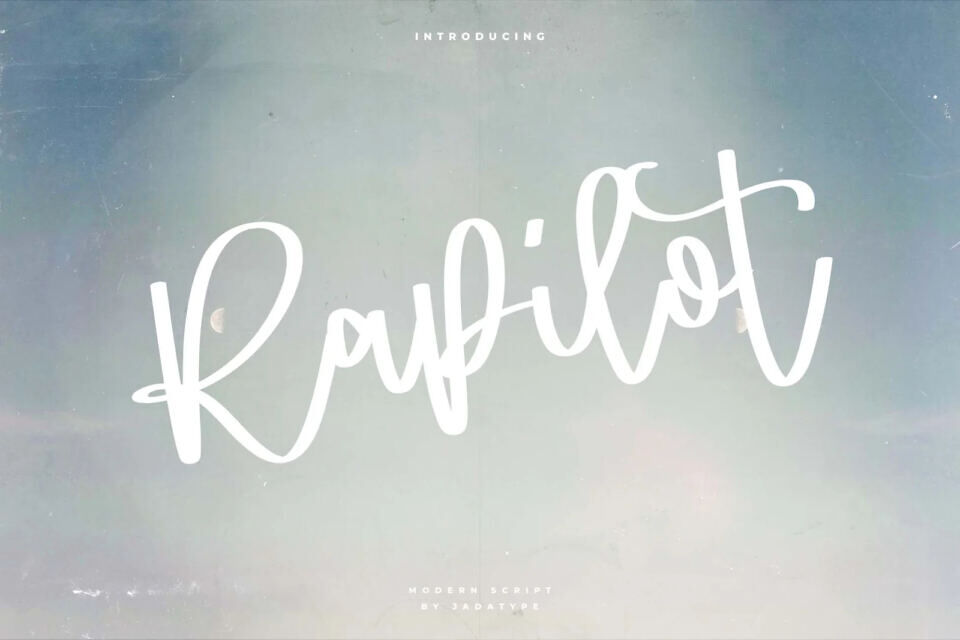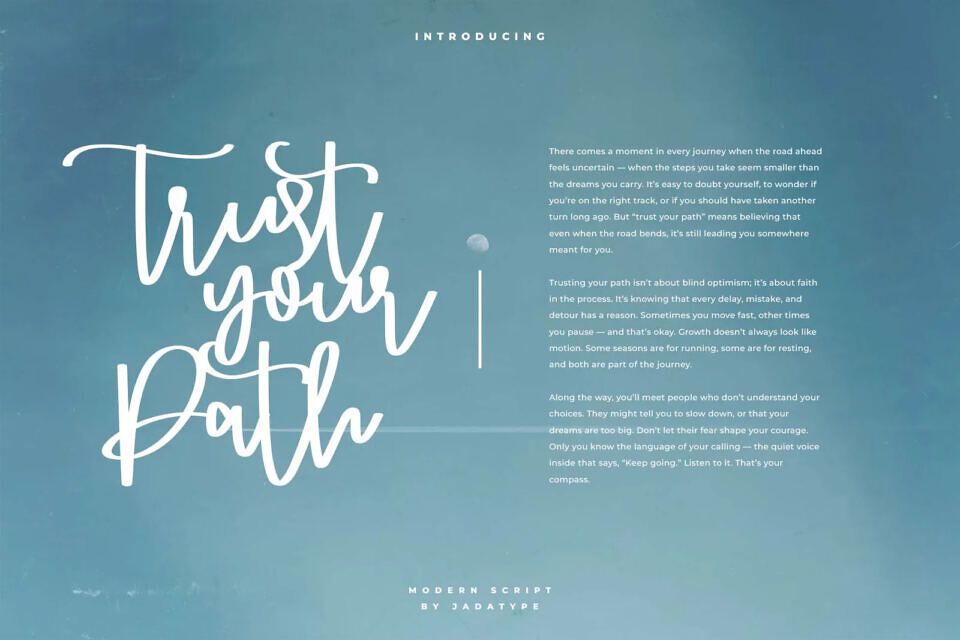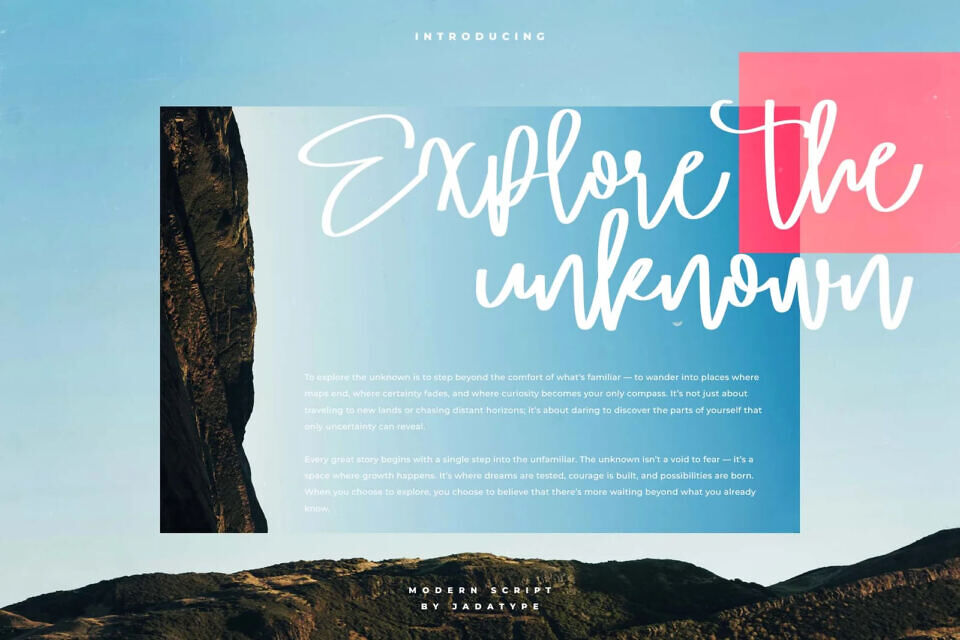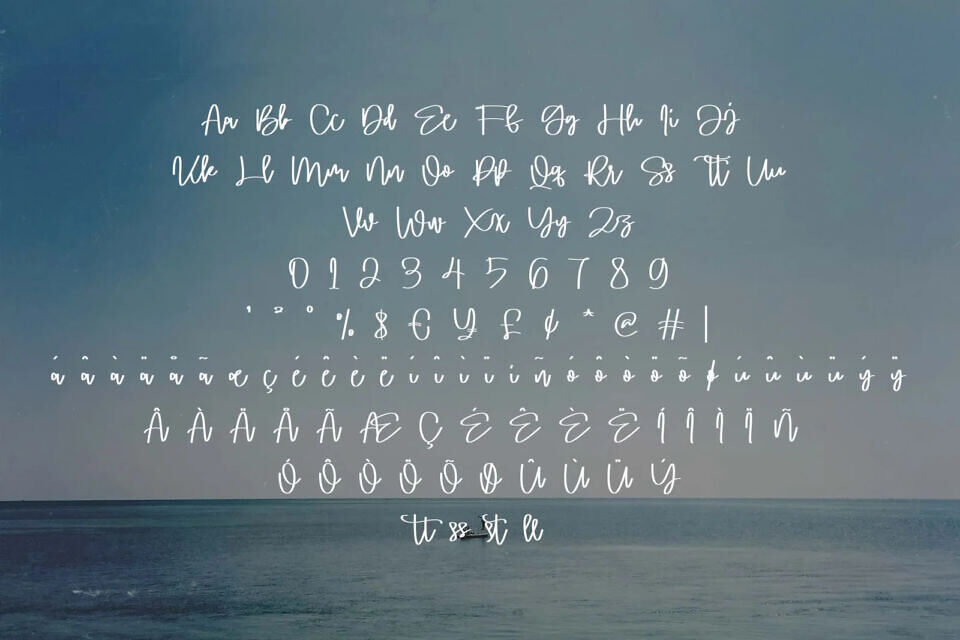
Rapilot Modern Script is a free-spirited blend of charm and confidence , a handwritten typeface that captures effortless elegance in every stroke. Its tall, looping curves and smooth rhythm bring a lively, contemporary feel to your designs. perfect for logos, invitations, and stylish social media visuals.